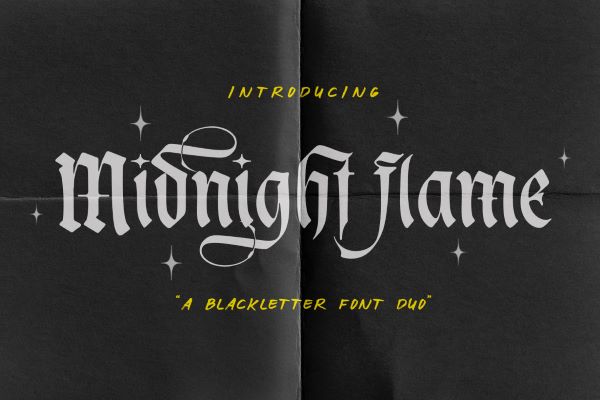
Midnight Flame Font
Midnight Flame by Rochart Project is a free Gothic font that channels the dramatic weight and mystique of medieval calligraphy into a fully contemporary design tool. Its bold, angular letterforms carry genuine historical authority while remaining practical for modern applications — 7 stylistic alternates, ligature support, and multilingual compatibility give it the versatility to serve branding, logo design, apparel, editorial, and social media projects with equal conviction.